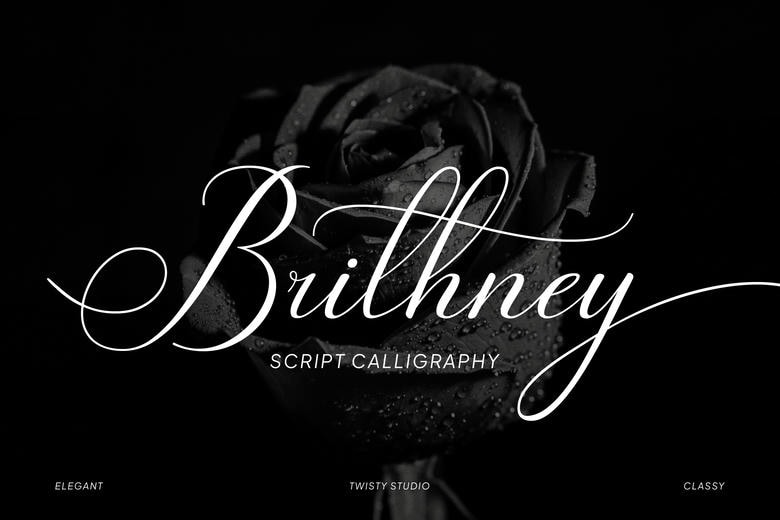
Brithney Font
Brithney is a script calligraphy font that is aimed to reproduce the beauty of a natural handwriting in an elegant and flowing style. With sleek strokes, elegant lines and balanced letter relationships, Brithney is gentle and sophisticated in typography.
This font is inspired by the contemporary style of calligraphy but has a certain sophistication and attractiveness without being hard to read or use. It is fluid, light, and perfect in the details, thus useful in designs that need a personal, stylish and expressive touch.
Brithney Calligraphy Script Font